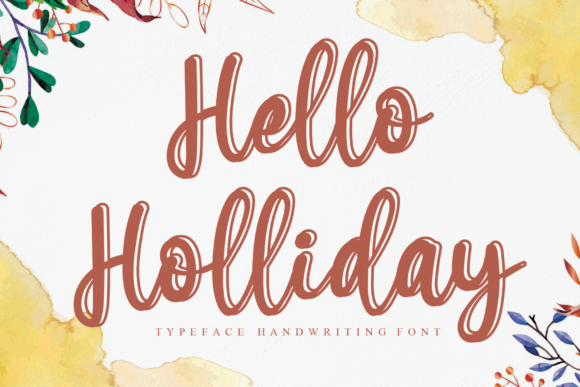
Adorn your designs with an enchanting touch using "Hello Holliday," a captivating script font crafted by the talented andikastudio. This exquisite font exudes a sense of joy and romance, transforming your creative projects into visually stunning masterpieces.
Hello Holliday's graceful strokes and sweeping curves are so much more than a mere font; it's an expression of elegance, beauty, and individuality. Its handwritten charm adds a genuine and personal touch to your designs, whether you're creating an unforgettable resume, an eye-catching logo, or simply adding some panache to your social media posts.
With "Hello Holliday" in your design arsenal, you'll effortlessly craft designs that resonate with your audience. Embrace the power of self-expression and make a bold statement with every design you create. Let your creativity soar as you witness the transformation of your projects into works of art, leaving a lasting impression on all who encounter them.
This remarkable font offers versatility and charm, allowing you to inject a touch of sophistication into a vast array of design endeavors. From wedding invitations that exude timeless elegance to business cards that command attention, Hello Holliday empowers you to create designs that capture hearts and make a lasting impact.
As you embark on your creative journey with Hello Holliday, you'll discover a world of possibilities. Its delicate lines and elegant flourishes lend themselves to a plethora of design styles, allowing you to effortlessly create designs that are uniquely yours.
Seize the opportunity to elevate your designs and make a lasting impression with Hello Holliday. Experience the magic of this enchanting font and let your creativity shine through.